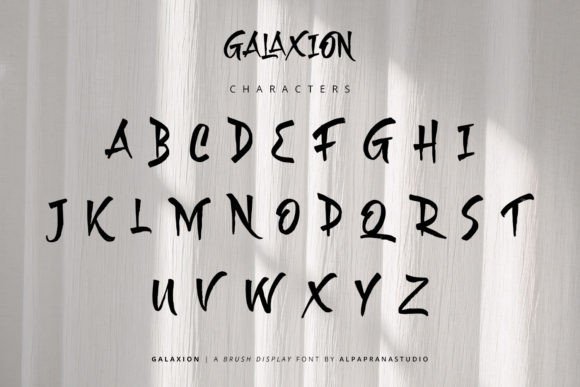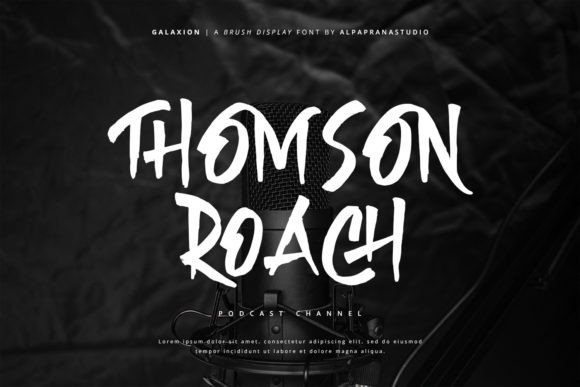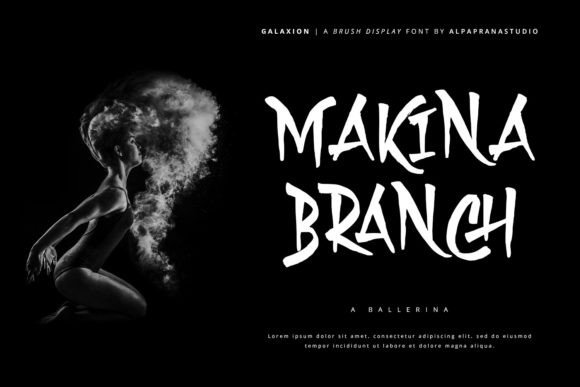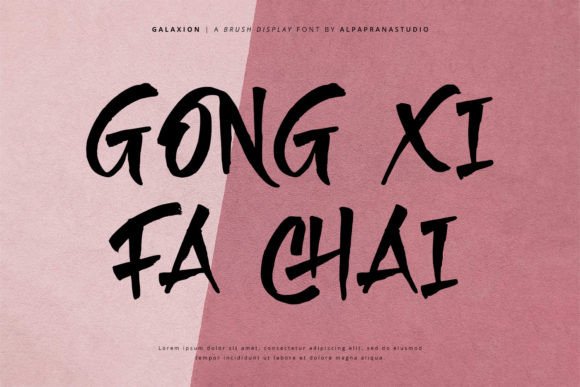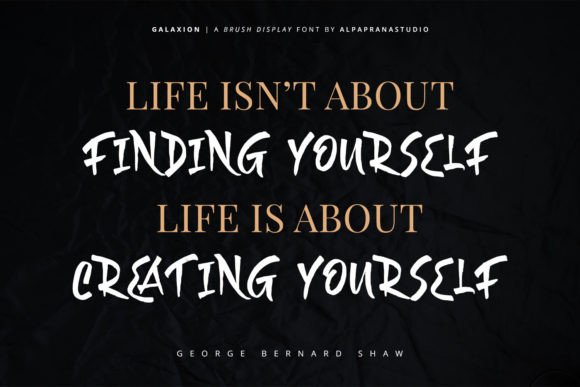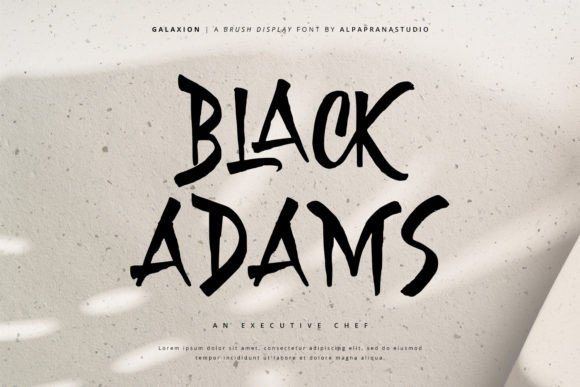
The Ultimate Guide to Galaxion Font: Elevate Your Designs with a Modern Handwritten Brush Display Font
I’ll never forget the time I was working on a branding project for a trendy new coffee shop. I had spent hours perfecting the logo, but something was missing. The design felt flat and lacked personality. That’s when I realized I needed a font that would add a touch of warmth and whimsy to the design. After scouring the internet, I stumbled upon Galaxion Font, and it instantly became the missing piece of the puzzle.
An Honest Review of Galaxion Font
Galaxion Font is a modern and natural-looking handwritten brush display font that has become a staple in my font library. Here’s what I love about it:
- ✨ Unique and eye-catching design that’s perfect for making a statement
- ✅ Highly legible, even in large and small sizes
- 💫 Supports multiple languages and has a wide range of glyphs
- 🎨 Compatible with OpenType features, allowing for endless creative possibilities
While Galaxion Font is an amazing addition to any design project, it’s not without its quirks. Here are a few things to keep in mind:
- 🤔 Some characters may appear a bit inconsistent in terms of line width and texture, which can add to its handmade charm but may not be suitable for very formal designs
- ⚠️ The font may not be the best choice for body text or long paragraphs, as it’s primarily designed for display purposes
- Experiment with OpenType features, such as stylistic alternates and glyphs, to add visual interest to your design
The Backstory of Galaxion Font
Galaxion Font was designed by a talented type designer who wanted to create a font that would capture the essence of modern handwriting. Inspired by the natural flow of handwritten text, the designer crafted a font that’s both elegant and approachable. The result is a font that’s perfect for creative projects, branding, and advertising.
| Font Name | Galaxion Font |
| Author | alpapranastudio |
| What is Galaxion Font? | Galaxion Font is a modern and natural-looking handwritten brush display font. |
| What is Galaxion Font used for? | Galaxion Font is perfect for creative projects, branding, advertising, and any design that requires a touch of personality. |
Galaxion Font is a versatile and beautiful addition to any design project. With its unique and eye-catching design, highly legible characters, and support for OpenType features, it’s the perfect font for creative designers, crafters, and hobbyists. Whether you’re working on a branding project, creating a social media graphic, or designing a website, Galaxion Font is sure to elevate your design and add a touch of personality.